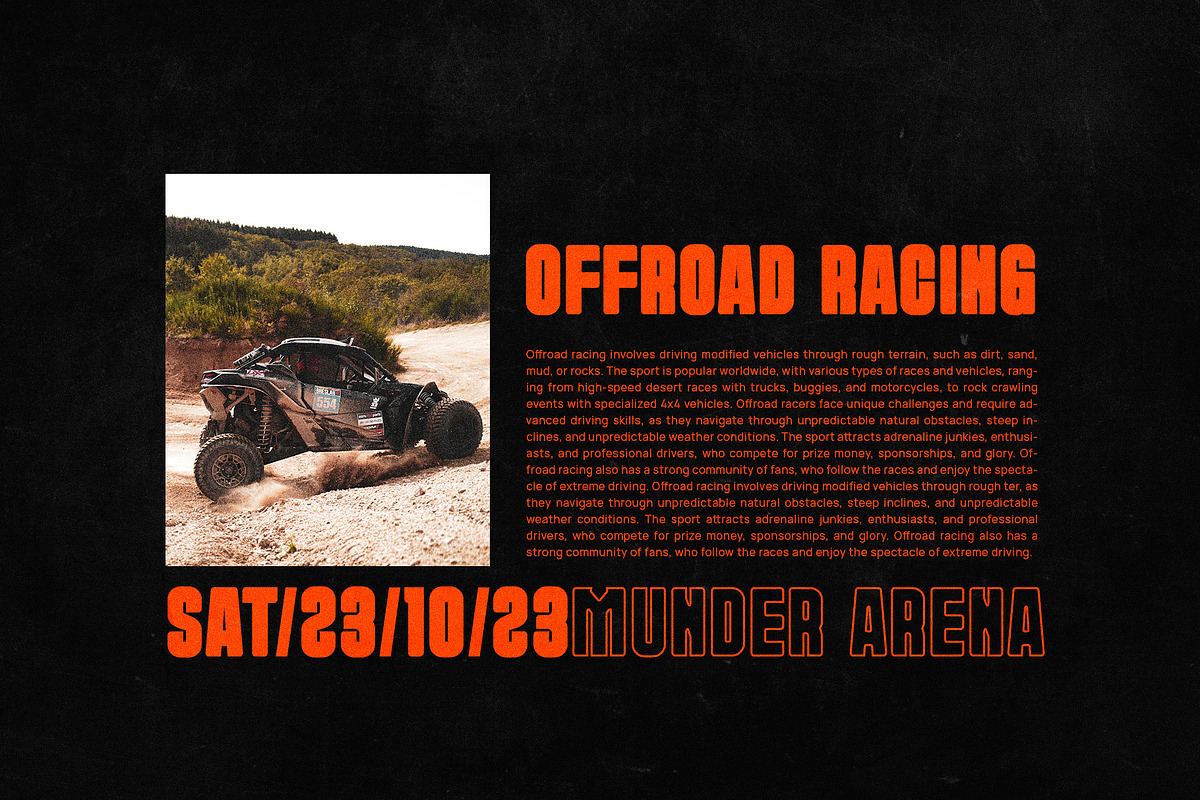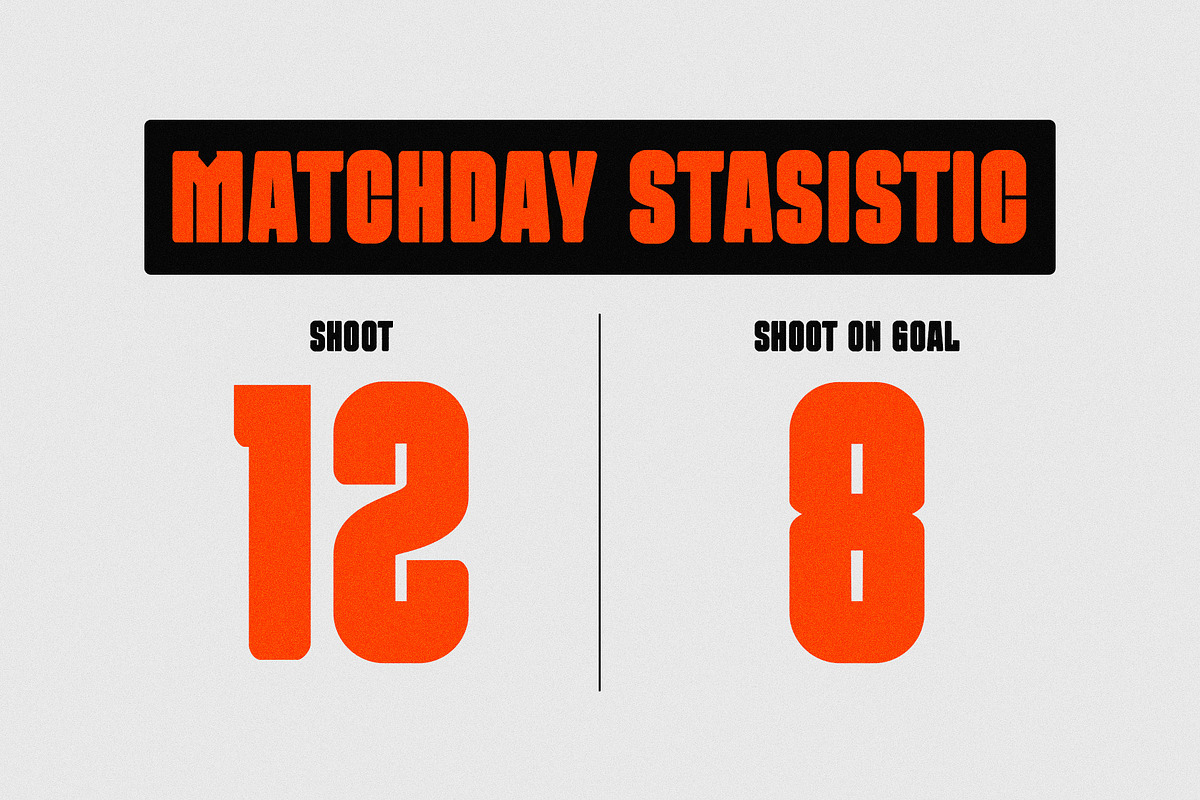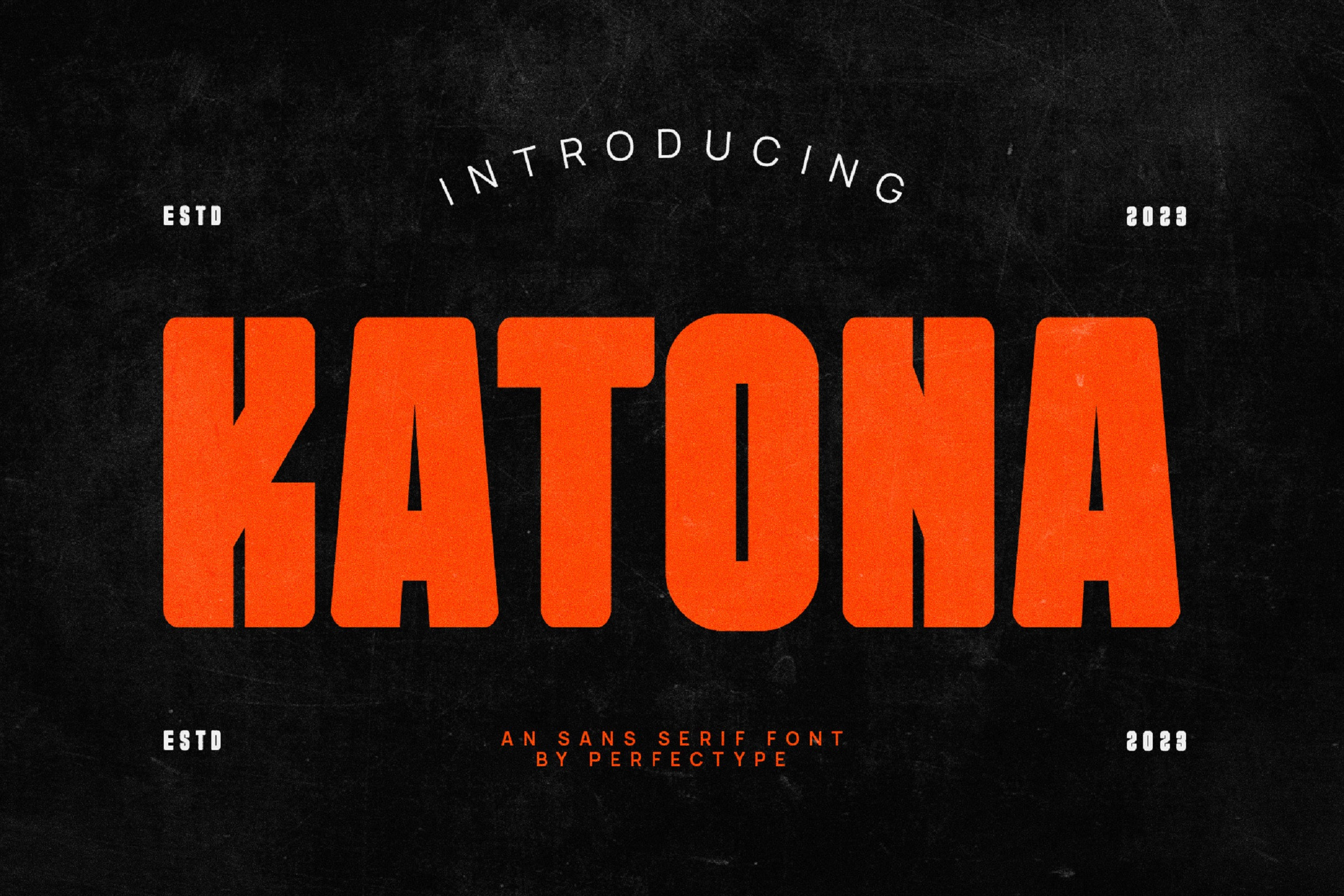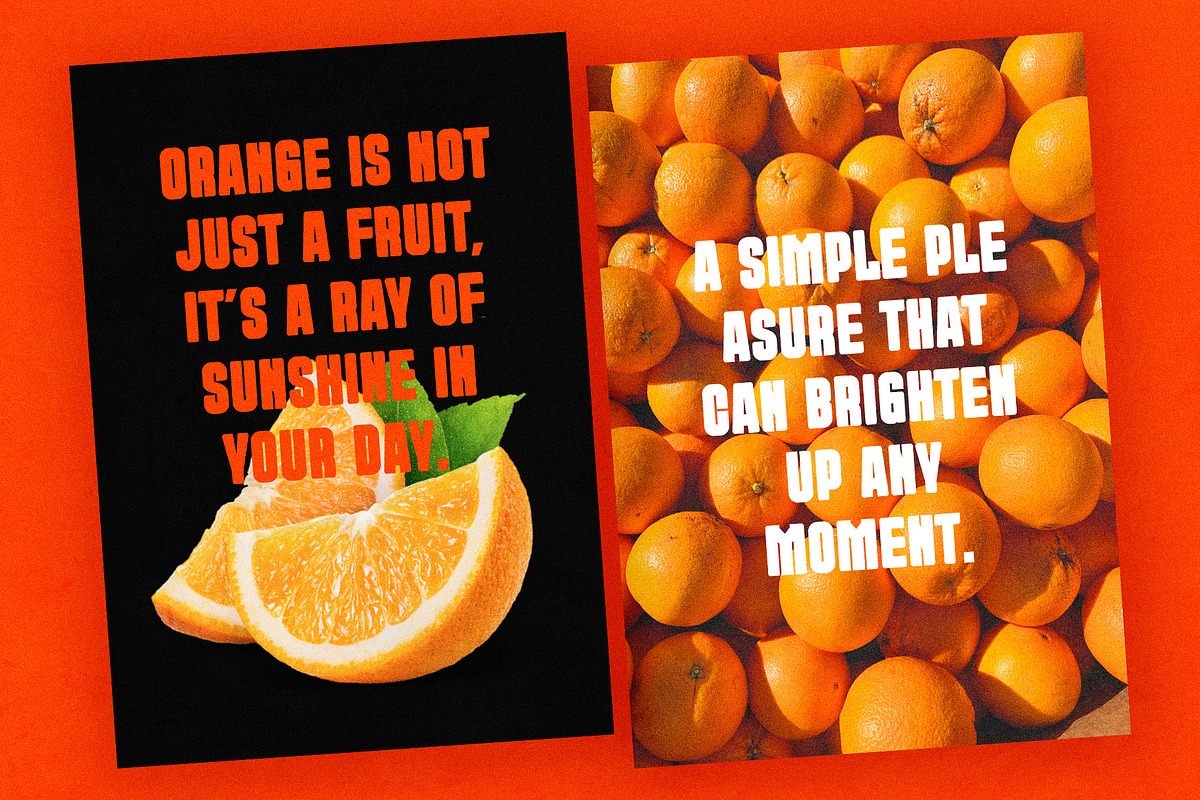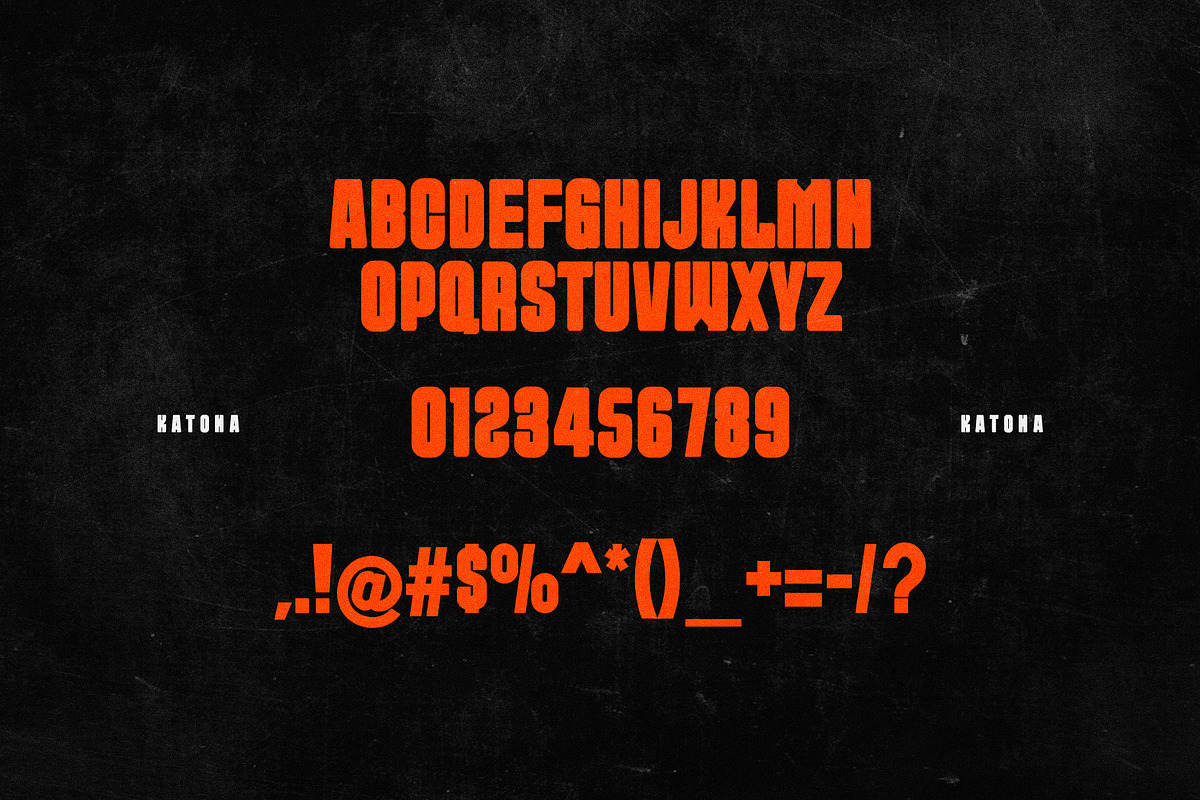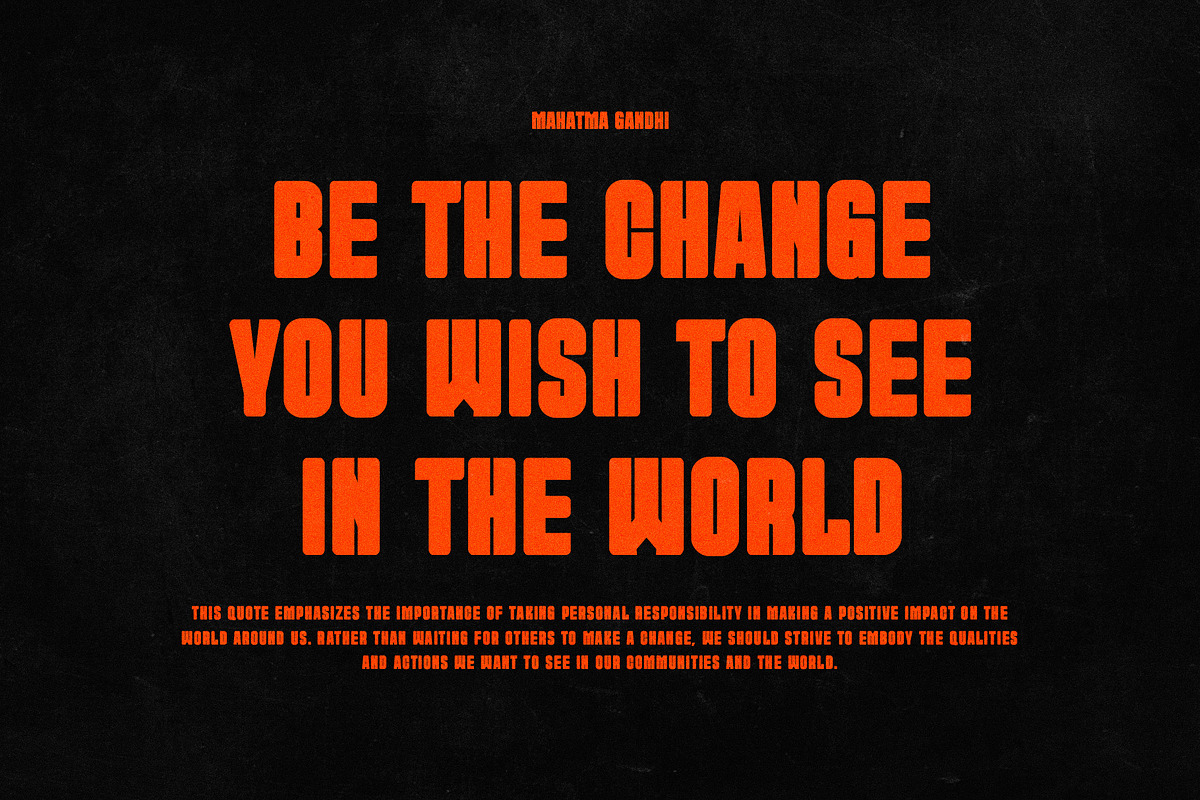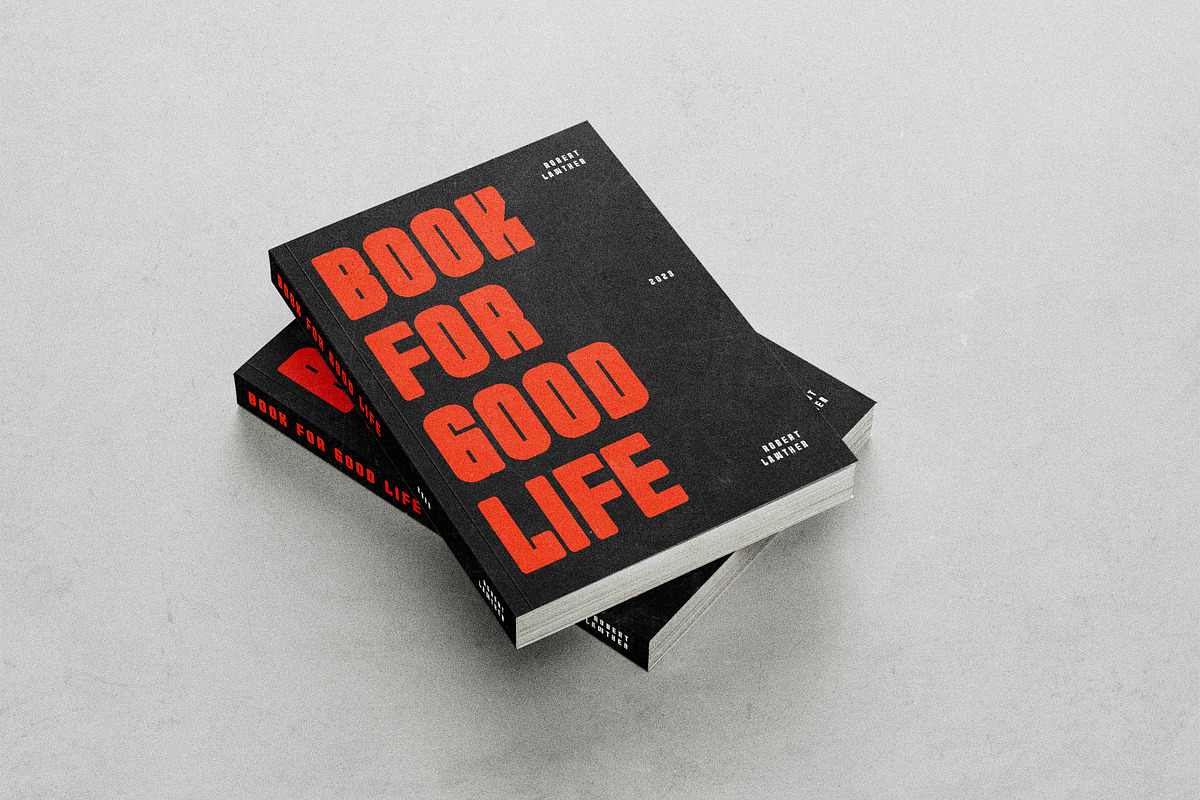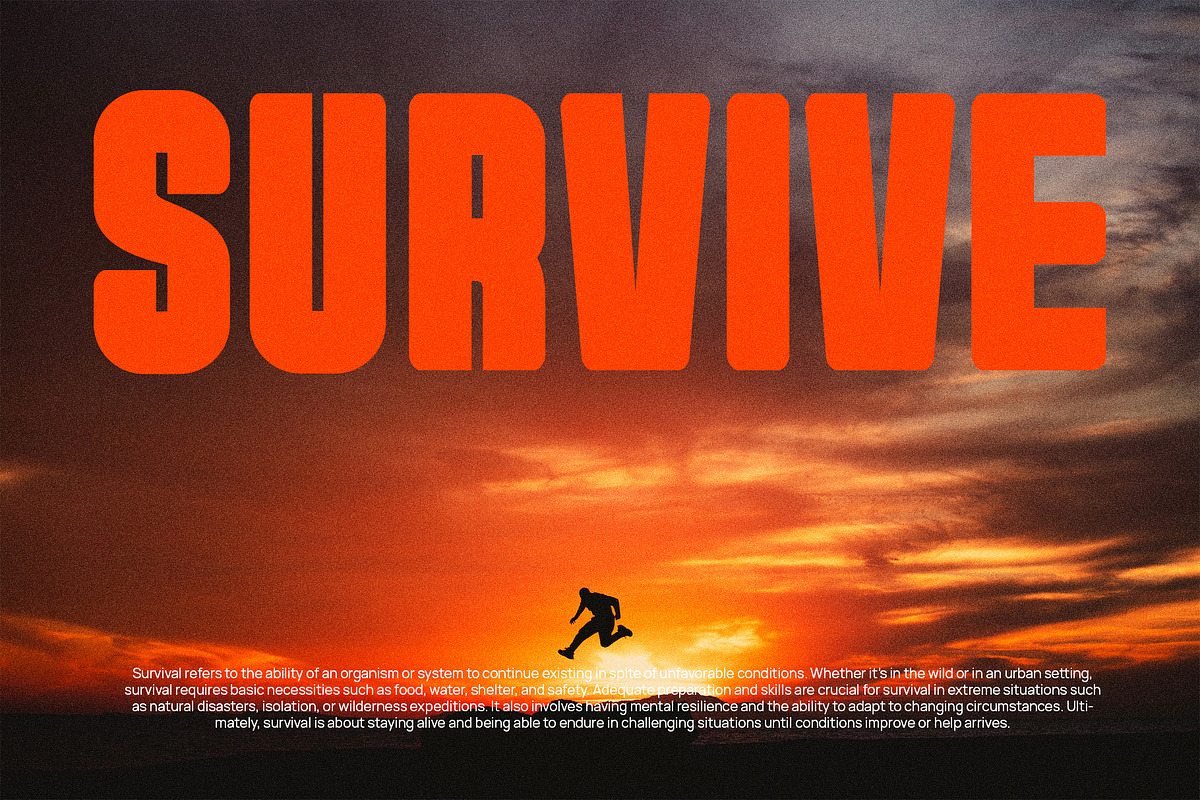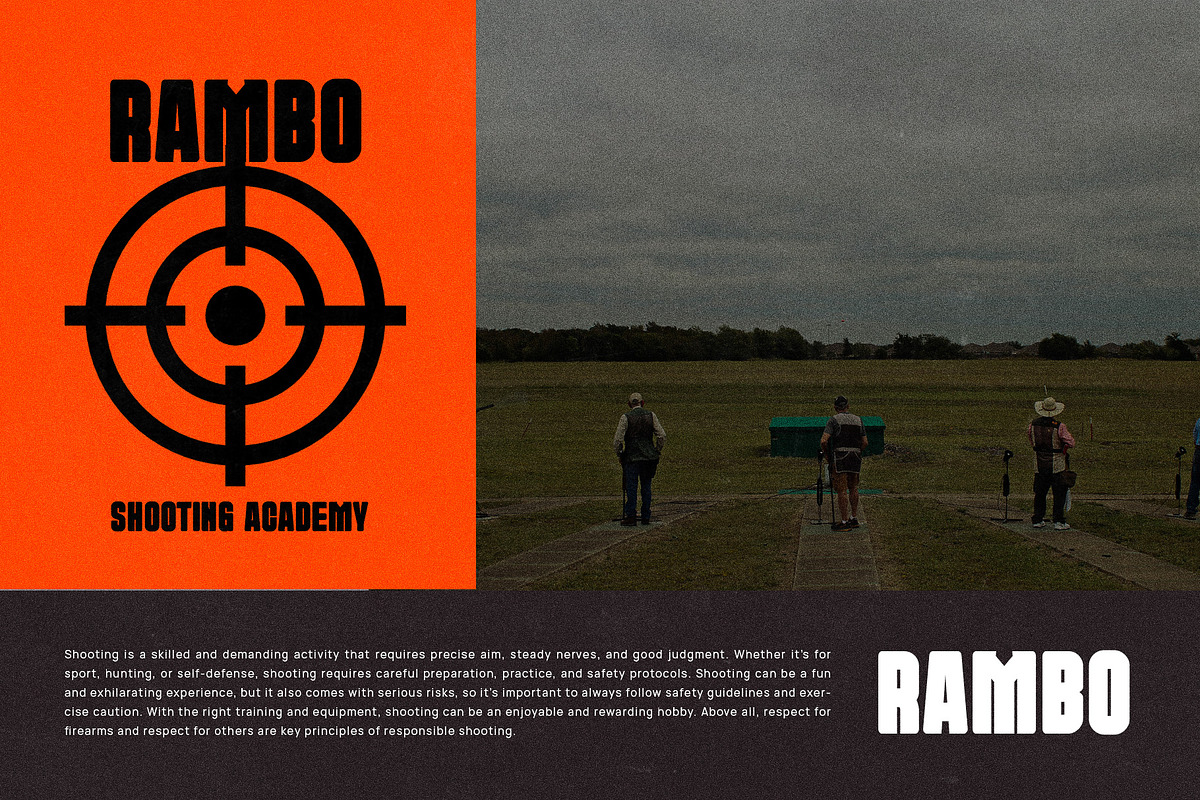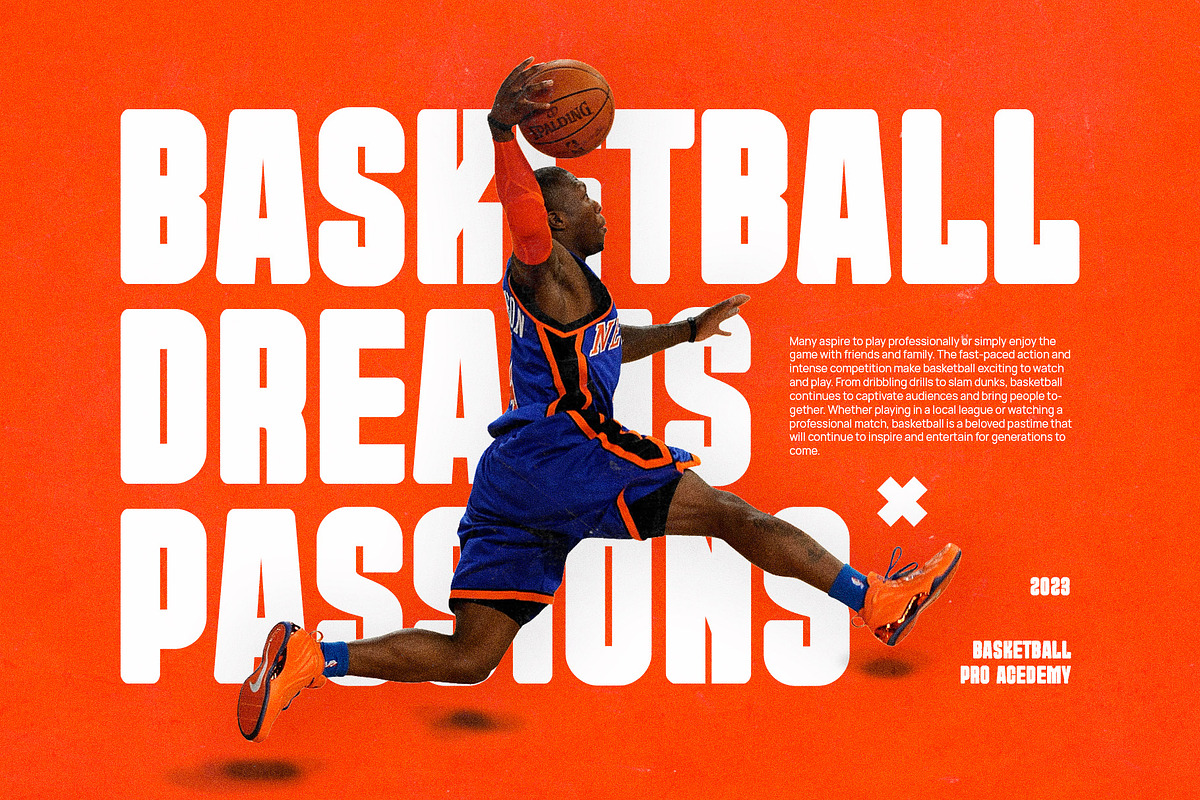
Katona Modern Sans Serif Font
This typeface encapsulates a rhythm that is symmetrical and balanced due to a unique mix of different sources of inspiration. Proportions are precisely adjusted with subtle contours and subtle contrasts. These shapes give the font an attractive look without compromising on elegance and minimalism, ensuring that any glyph will work well in any graphic design purpose such as brochures, videos, advertising branding, logos, magazines, layout designs, posters, post templates, games and others